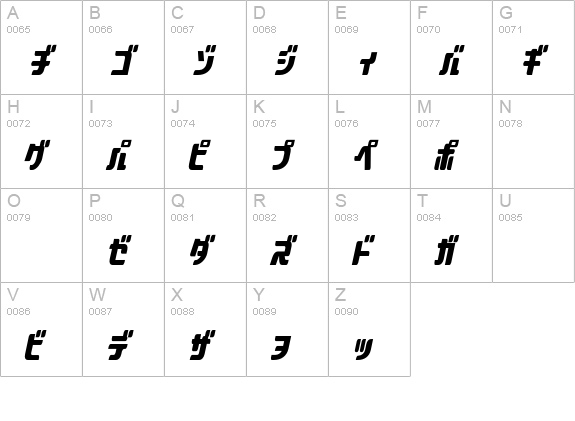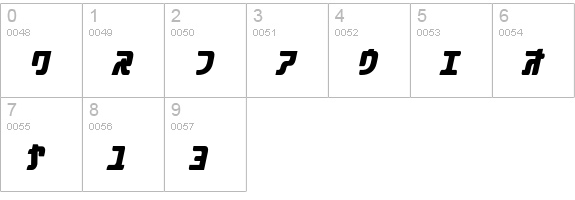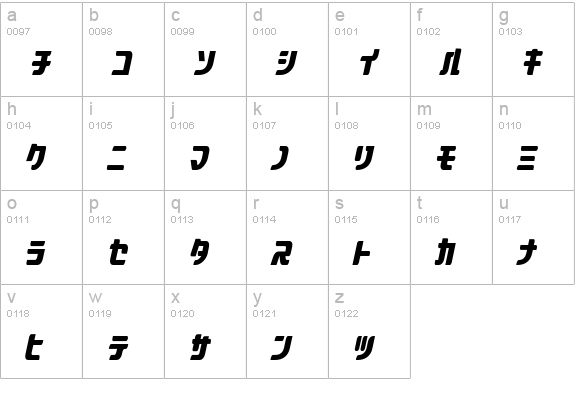
Aquasky20KAT-Italic is a distinctive, italic variant in the Aquasky20KAT typeface family \xE2\x80\x94 well suited to design and typography projects.
Aquasky20KAT-Italic is a stunning and elegant font that exudes sophistication and style. Its sleek and fluid design is perfect for adding a touch of class to any project. The italicized characters lend a sense of movement and grace, making this font a versatile choice for various design purposes. What's even better is that Aquasky20KAT-Italic is available for free download at FontsMarket.com! Yes, you heard that right - you can add this beautiful font to your collection without spending a dime. Whether you're working on a branding project, a website design, or a creative art piece, Aquasky20KAT-Italic is sure to elevate your work and leave a lasting impression. Download it now and unleash your creativity with this exquisite typeface.